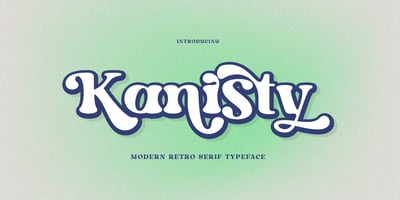
Kanisty
Kanisty font
Kanisty Font Family was designed by Dzulka Elfira and published by ijemrockart. Kanisty contains 2 styles and family package options. Kanisty – Modern Bold Serif Font is a stylish font It has both modern and retro look. Comes with alternatives and ligatures, helps to create stunning logos, quotes, posts, blog posts. branding projects, magazine imagery, wedding invitations, and much more.WHAT YOU GET ? Unique Letterforms Works on PC & Mac Simple Installations Accessible in the Adobe Illustrator, Adobe Photoshop, Microsoft Word Fully accessible without additional design software. I really hope you’ll get pleasure using Kanisty font and it will be perfect addition to your font collection! Thank you! Happy Creating.